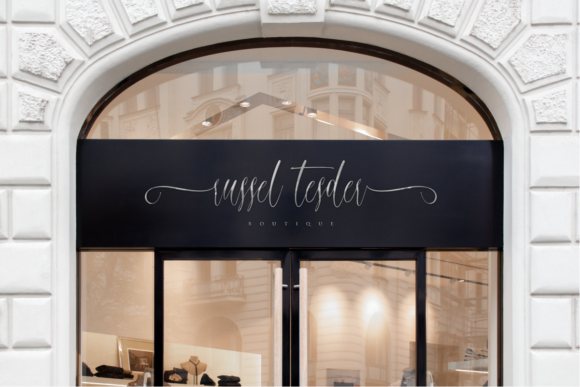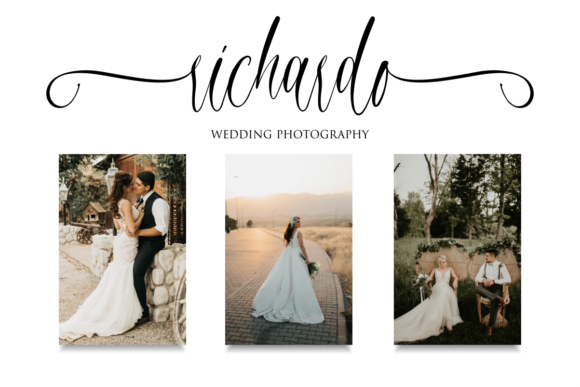
Bridesmaid Font
db-ku.com - Script & Handwritten -- Bridesmaid is a flowing and distinct handwritten font. This font is PUA encoded which means you can access all of the glyphs and swashes with ease! Fall in love with its incredibly versatile style and use it to create gorgeous wedding invitations, beautiful stationary art, eye-catching social media posts, and much more!